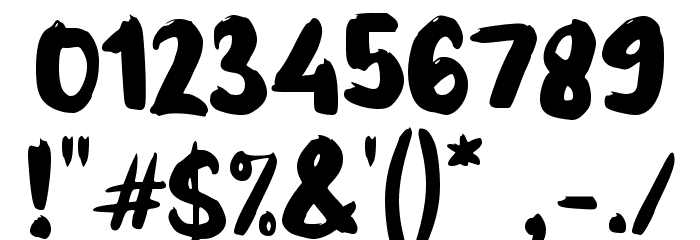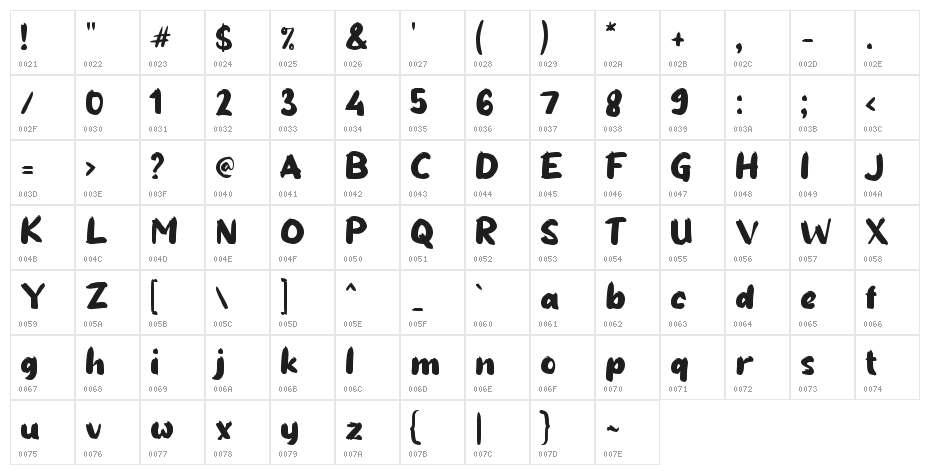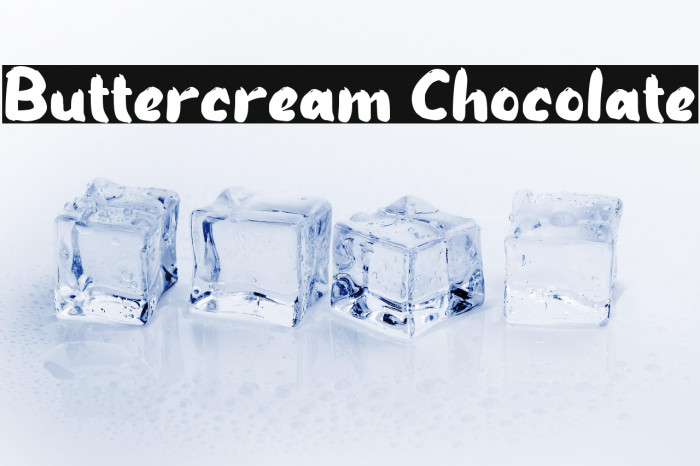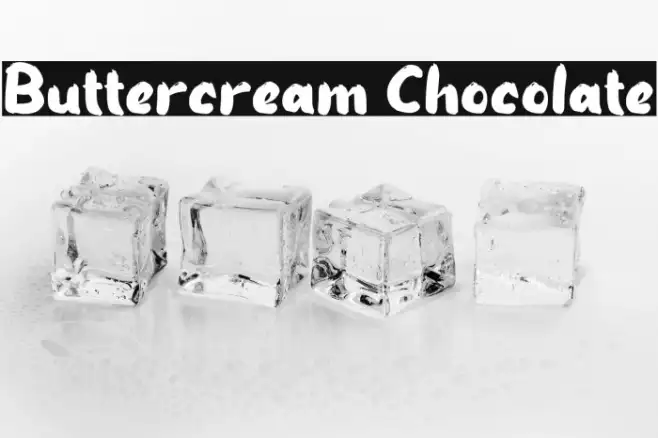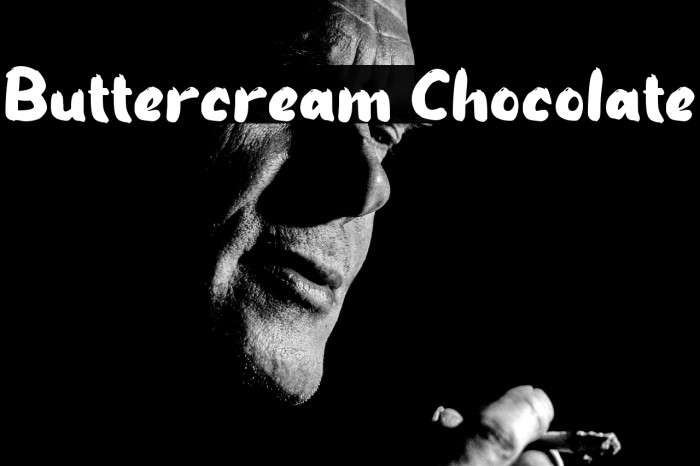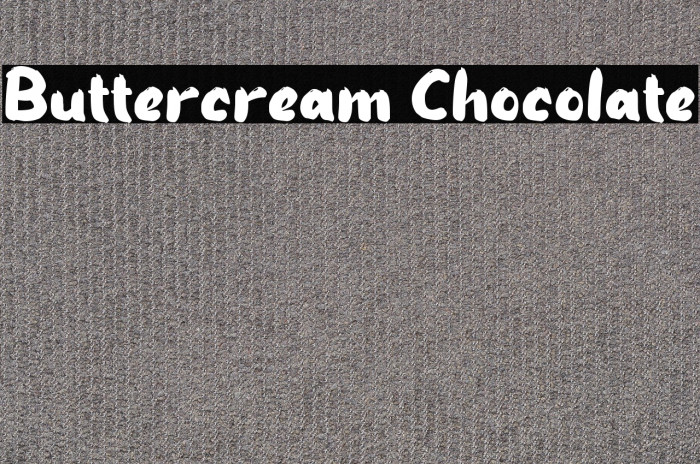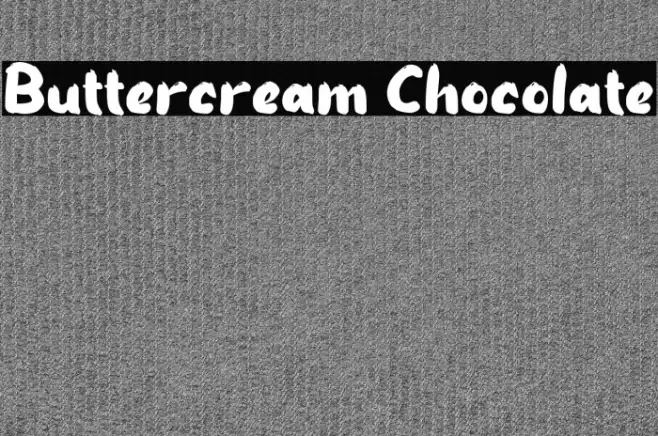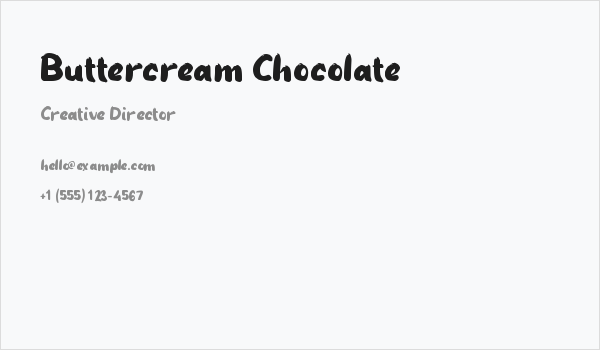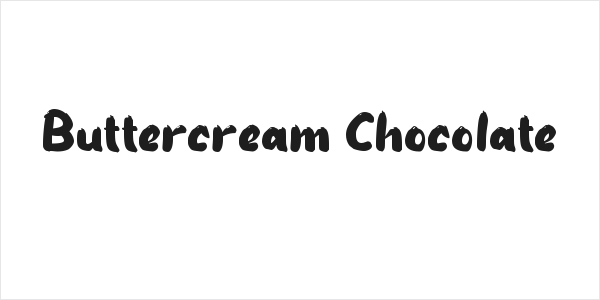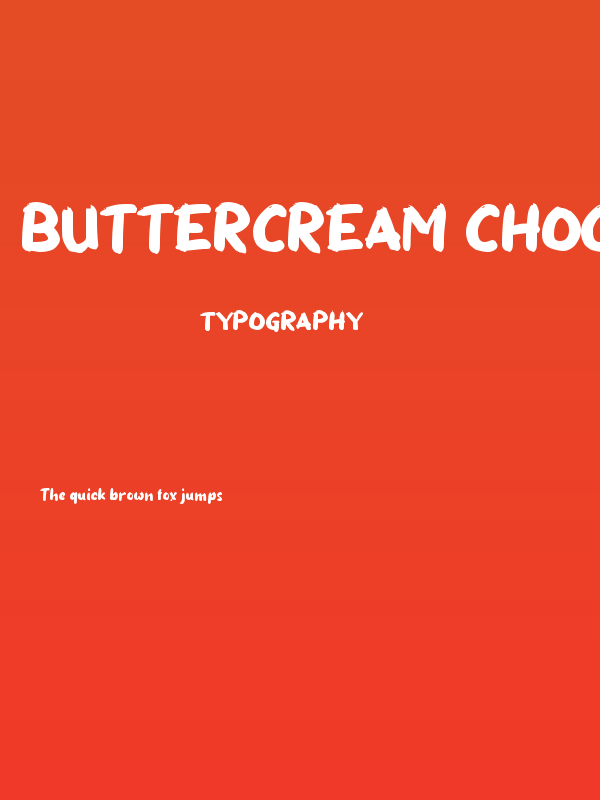
Buttercream Chocolate Font
Buttercream Chocolate Description
This font features a bold and playful handwritten style, characterized by its thick and uneven strokes that give it a lively and informal appearance. The letters are slightly slanted, adding to the casual and dynamic feel. Each character is distinct, with rounded edges and a slightly irregular baseline, enhancing its hand-drawn aesthetic. The uppercase and lowercase letters maintain a consistent style, while the numbers and special characters integrate seamlessly, ensuring versatility across different uses. The font's energetic and friendly vibe makes it suitable for creative and informal projects.
| Proposed Projects | Ideal for children's books, greeting cards, playful branding, and social media graphics. |